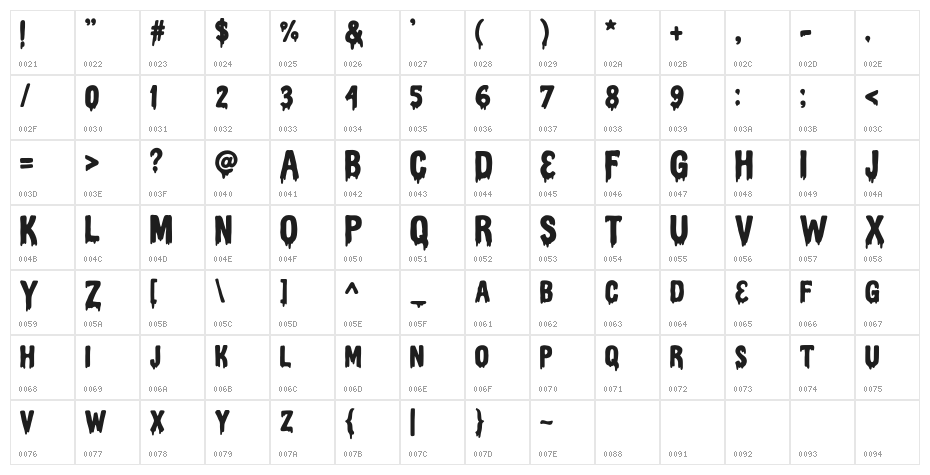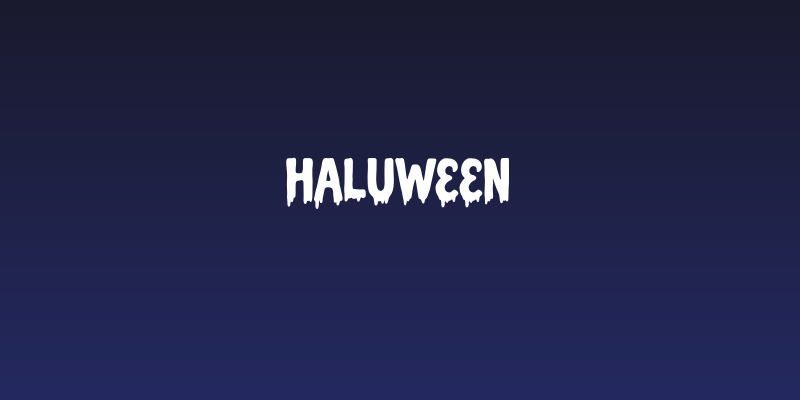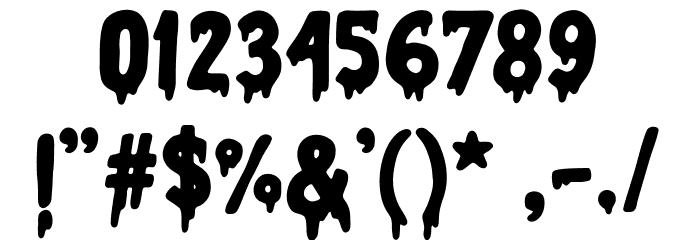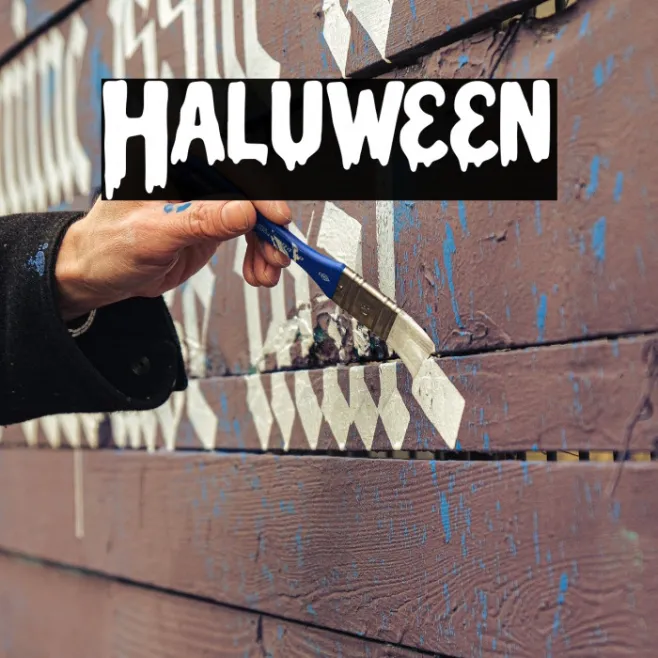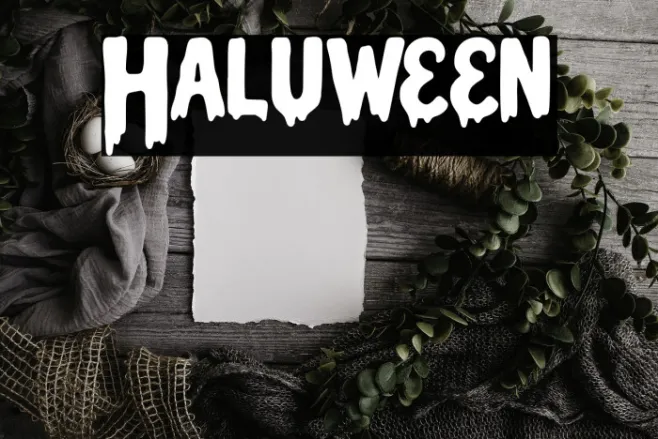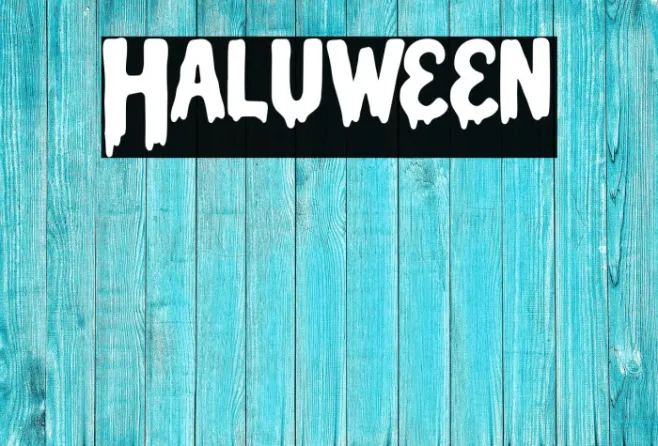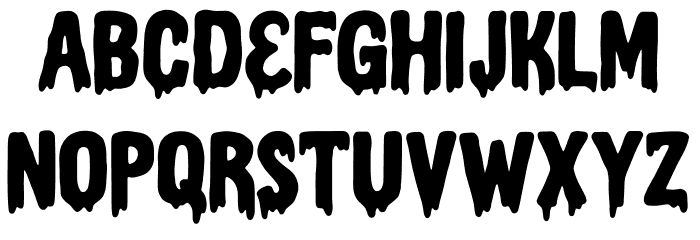
Haluween Font
Haluween Description
This font features a playful and spooky design, reminiscent of dripping paint or melting wax, making it ideal for Halloween-themed projects. The characters are bold and have a unique, irregular shape that adds to the eerie aesthetic. The uppercase and lowercase letters maintain a consistent style, with each character exhibiting a dripping effect that creates a sense of movement. The numbers and special characters are equally stylized, ensuring a cohesive look across all text elements. This font is perfect for creating eye-catching headlines, posters, and invitations that require a touch of the macabre.